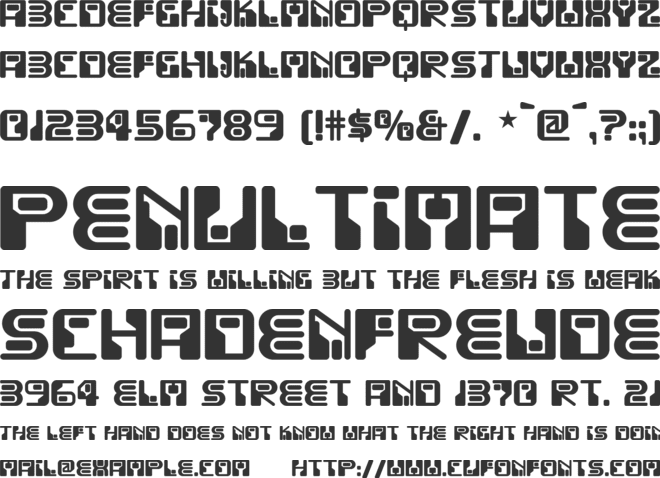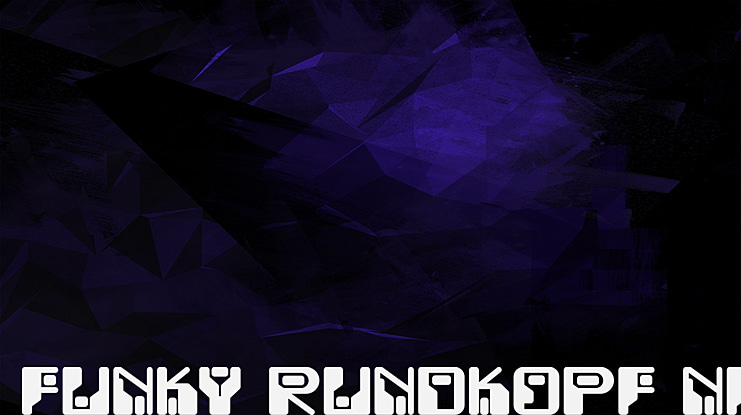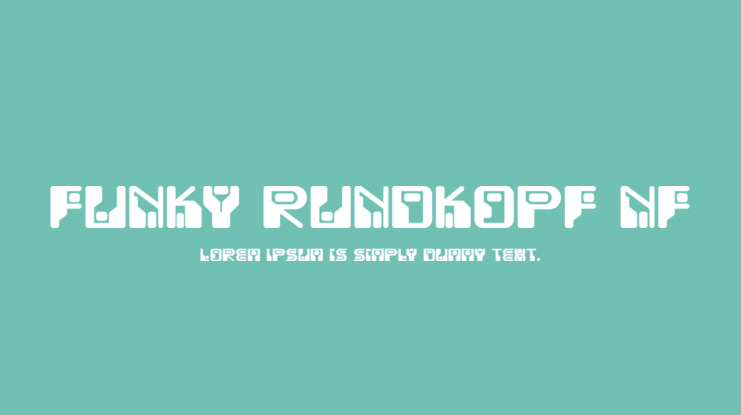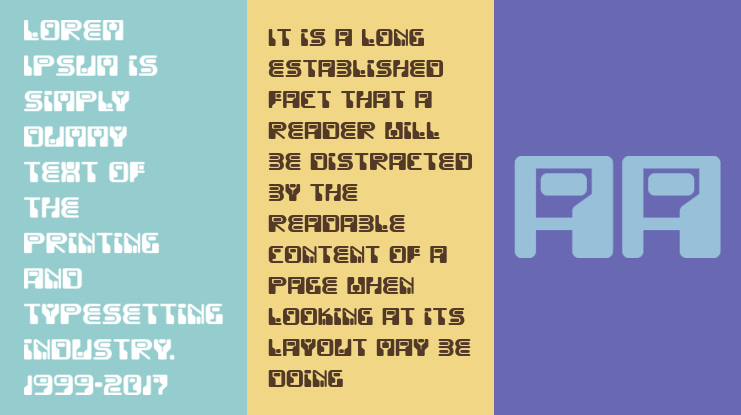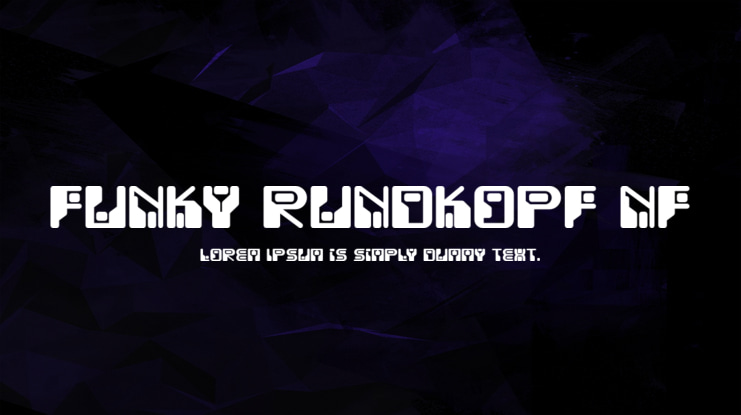
A 1990s-vintage Radiohead poster by Jermaine Rogers provided the go-by for this tight, trippy techno face. Jermaine’s design, it turns out, was an adaptation of a Ray Larabie font, Dignity of Labour (/dignity-of-labour-font.html). This version cleverly combines stark geometry with Art Nouveau sensibilities to produce a kind of Digital DNA feel.The commercial font is "new and improved" over the freeware version, with expanded character set and improved kerning, so you get what you pay (or don't pay) for.